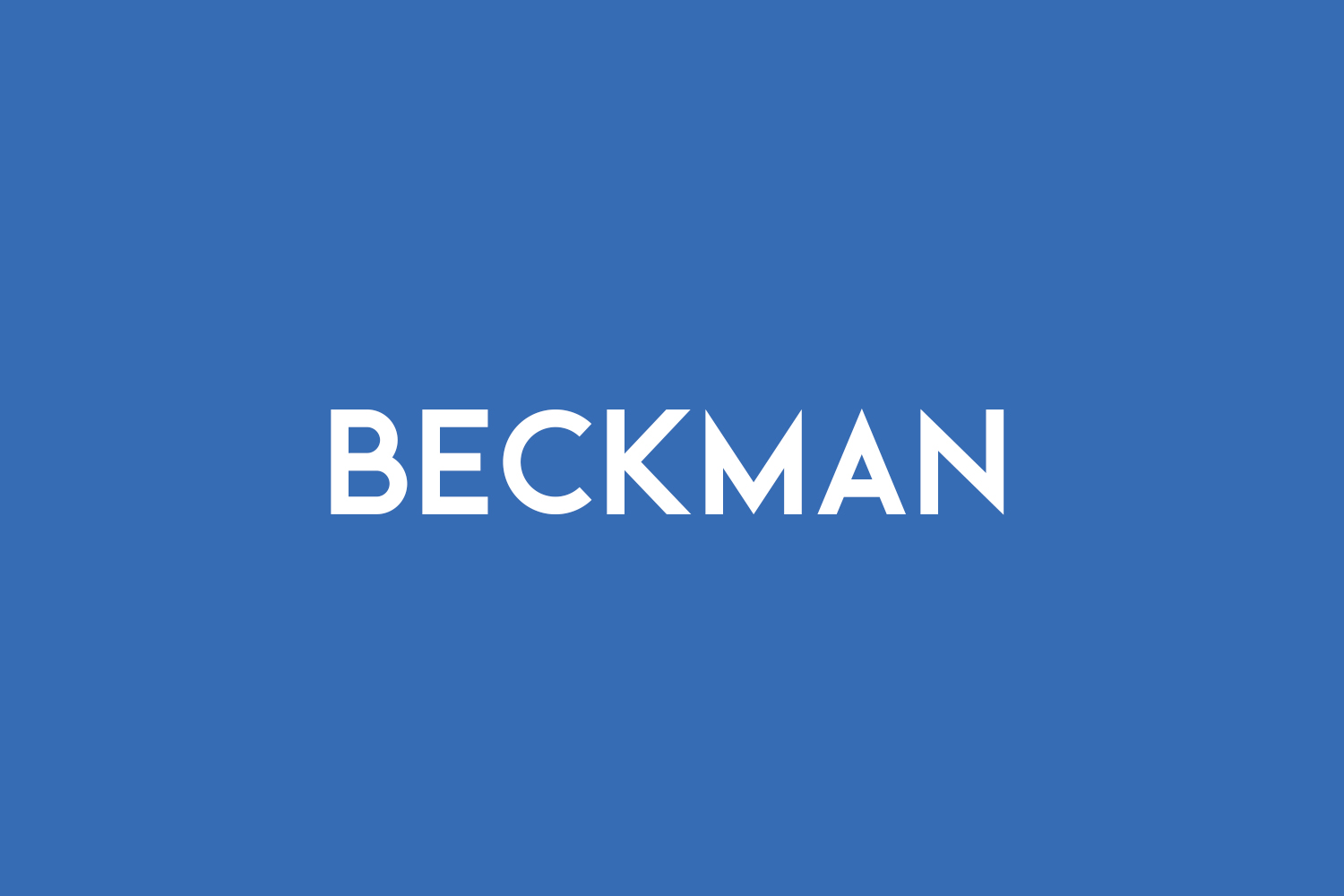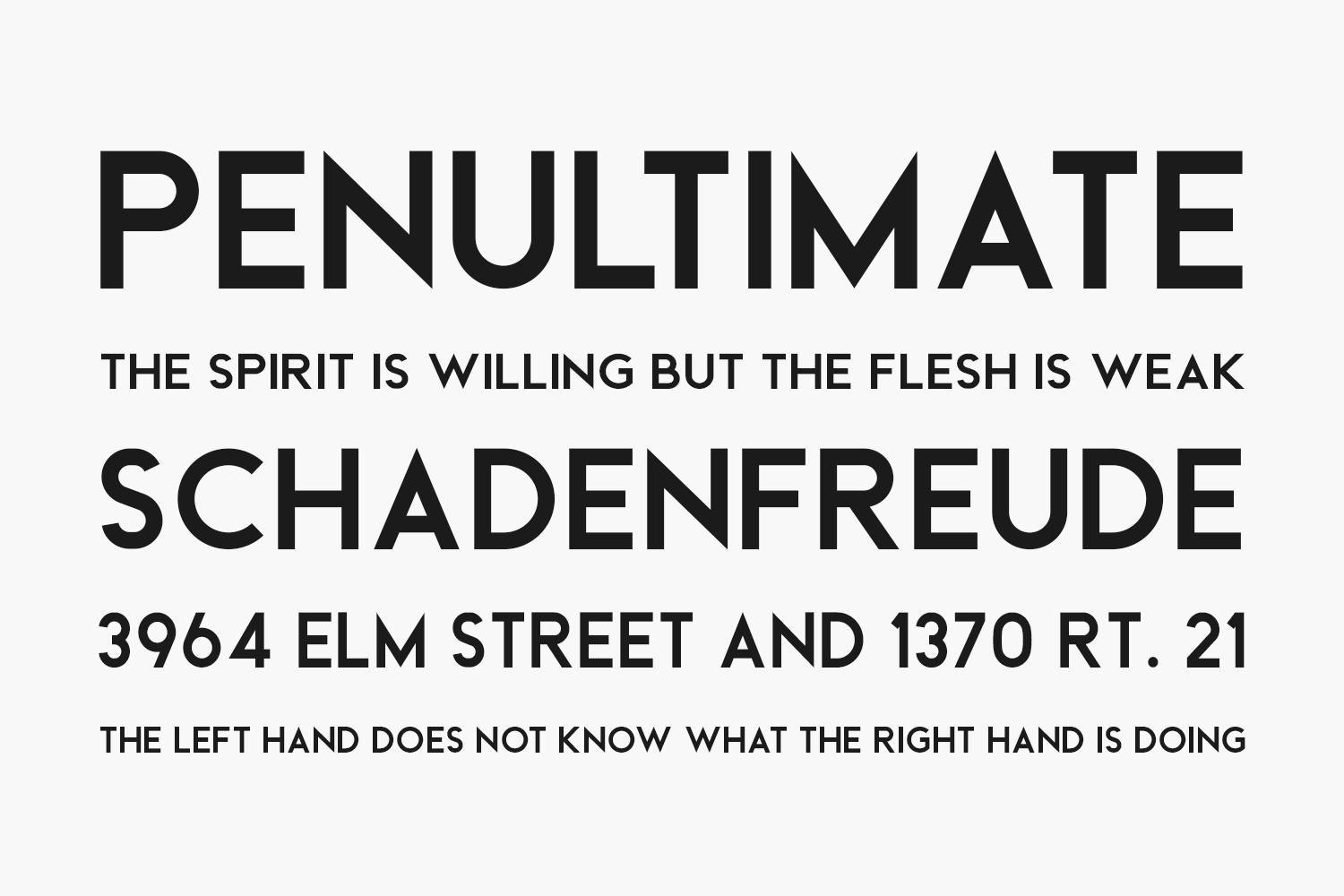
Beckman Free Font is a modern and minimalist sans-serif font family. The combination of minimal and geometric elements renders a modern design. Beckman includes 6 fonts, clean and modern caps, thereby creating more variability. The alternate glyphs are available for the full version. Please purchase the full version for commercial use.
Designed by Factory738